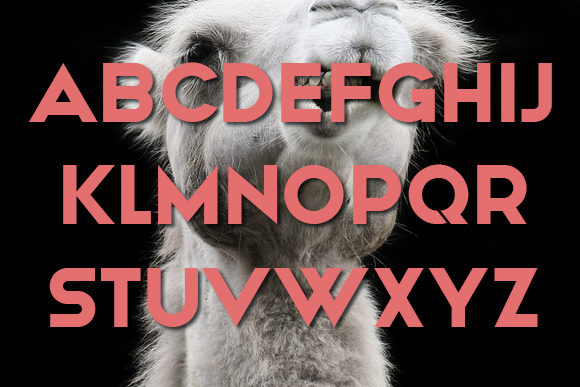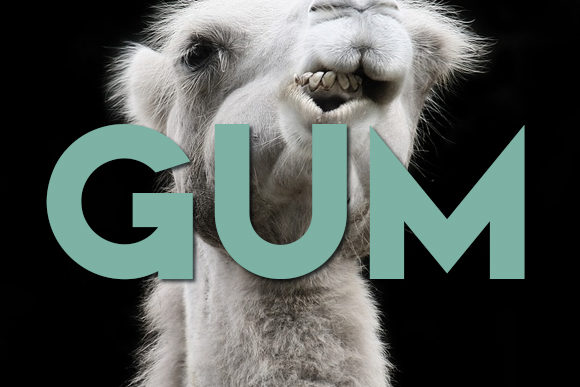
Remember that moment when you see a font and it just clicks? The perfect combination of style and functionality that makes your creative juices flow. For many designers, that moment often comes when they stumble upon the right font to elevate their project. For us, that moment came when we discovered the Chewer Font.
The Chewer Font is a bold and simple sans serif font designed to make an impact. Its clean lines and modern aesthetic make it perfect for creating eye-catching posters, flyers, and headlines. But what really sets it apart is its incredible adaptability, allowing designers to envision and create nearly anything they can imagine.
Whether you’re a seasoned pro or just starting out, the Chewer Font is a valuable addition to any designer’s toolkit. Its versatility and bold style make it an ideal choice for a wide range of projects, from marketing materials to editorial designs.
Chewer Font Key Features
- Font Family: Chewer is a sans-serif font family designed for digital use.
- Unique Characteristics: Chewer features a unique blend of modern and geometric elements, with a focus on clarity and readability in digital environments.
Designer Review: Chewer Font
First of all, I want to say that I was excited to work with the Chewer Font. Here are some of the things that I think work well: ✨
- Unique and quirky aesthetic: Chewer Font has a distinctive look that’s perfect for creating eye-catching headlines or adding some personality to your design.
- Wide range of weights and styles: With multiple weights and styles available, you can use Chewer Font to create a range of visual effects and moods.
- Good legibility: Despite its unconventional design, Chewer Font is still relatively easy to read, making it a great choice for body text.
However, I also encountered some limitations: ⚠️
- Limited language support: Chewer Font doesn’t have a wide range of language support, which could be a problem if you need to design for a global audience.
- Not suitable for small text sizes: Due to its quirky design, Chewer Font can be difficult to read at small text sizes, which may limit its use in certain contexts.
Overall, I think Chewer Font is a great choice for designers who want to add some personality and flair to their work. While it may not be suitable for every project, it’s a great option for creating eye-catching headlines or adding some visual interest to your design.
Tips for Getting the Most Out of Chewer Font
Use Chewer Font for titles and headings to add a playful touch to your designs. Experiment with different font sizes and colors to create visual interest. Combine Chewer Font with other fonts for a unique and eye-catching look.
Use Chewer Font for:
- Children’s products and packaging
- Playful and whimsical designs
- Titles and headings for creative projects